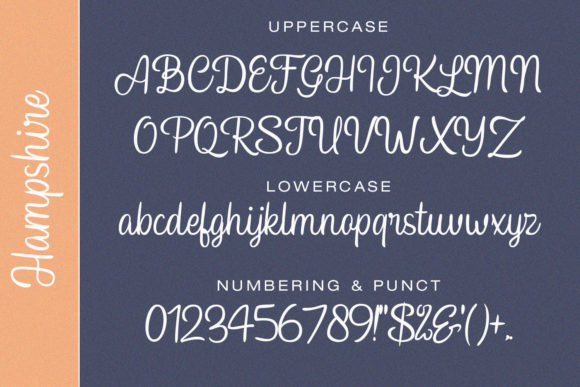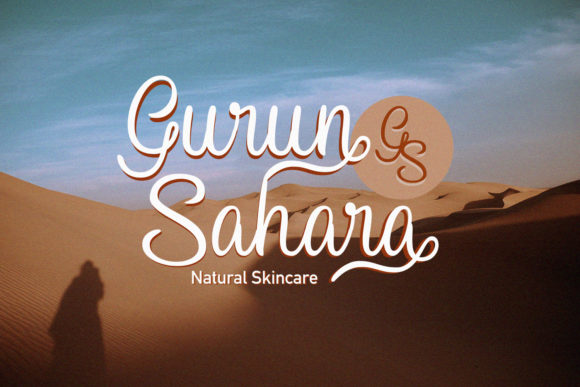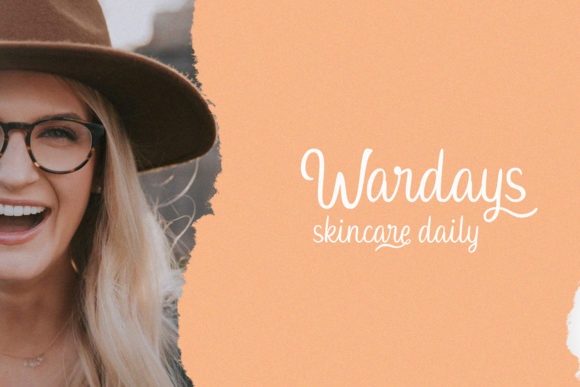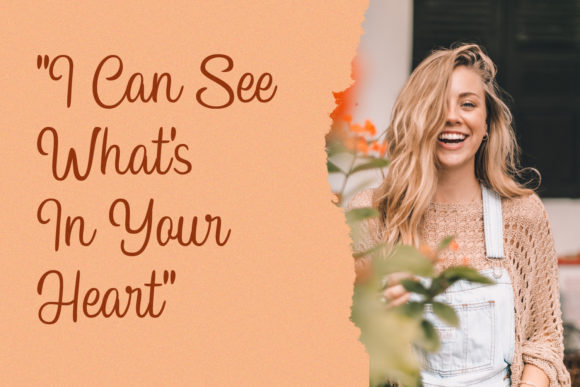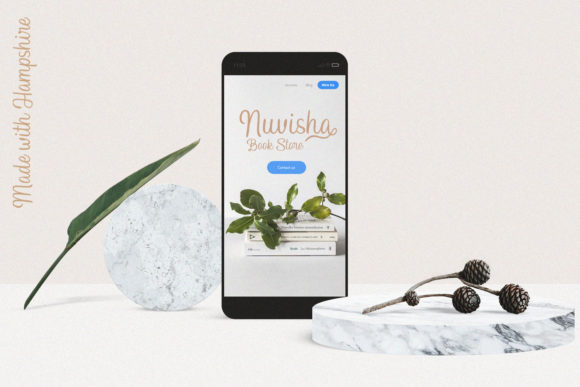
Hampshire Font
About Hampshire Font
Hampshire is a chic script font. It features gorgeous swashes and ligatures that make this script incredibly versatile. Whether you’re looking for fonts for Instagram or calligraphy scripts for DIY projects, Hampshire will turn any creative idea into a true piece of art!